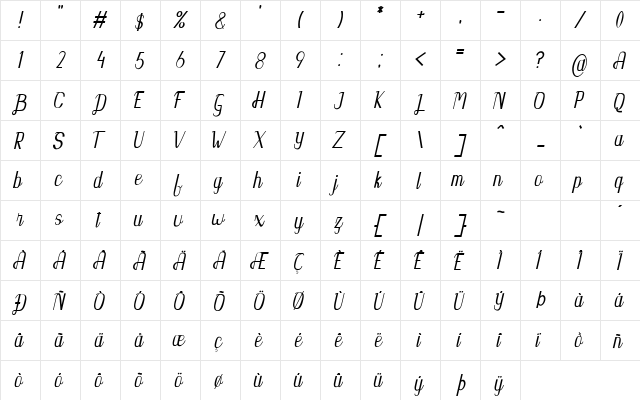
Kupika Regular Font Preview
Kupika Regular
Kupika Regular Font Details
| Designer | AmruID |
Design Context for Kupika Typeface
Kupika offers clean, dependable letterforms without strong stylistic allegiance, making it a practical choice for designers who need flexibility.